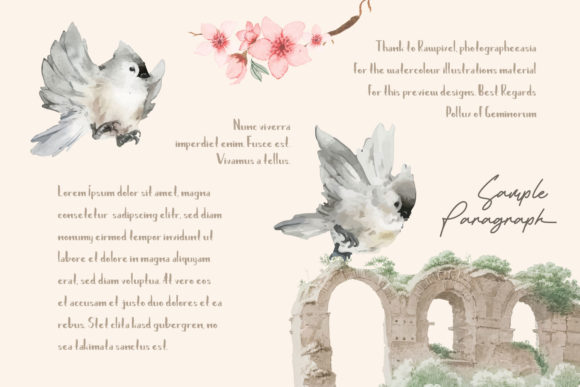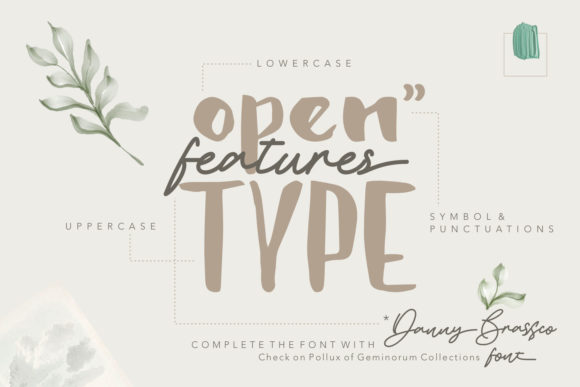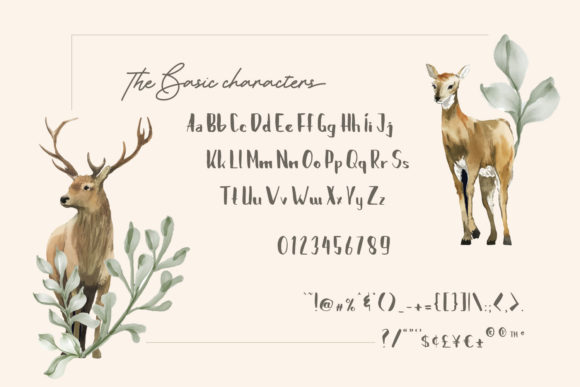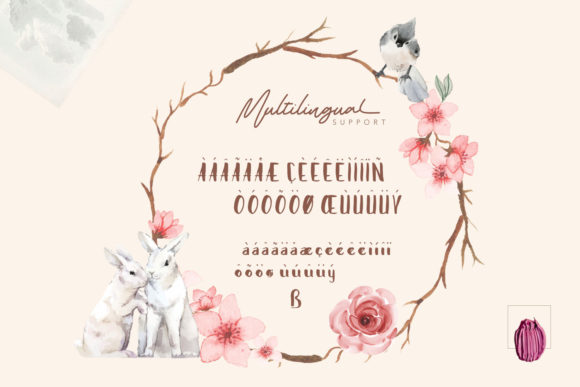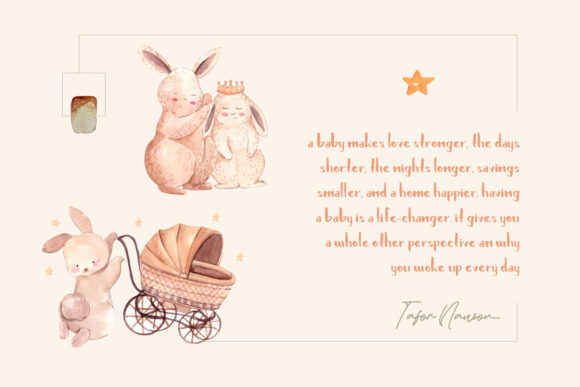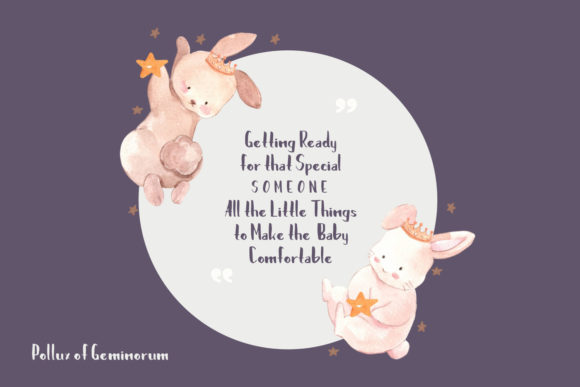
Unlock the Magic of Hand-Drawn Typography
Do you remember the thrill of doodling in your notebook as a kid? The feeling of bringing a blank page to life with vibrant colors and playful scribbles? As a creative, you know that this sense of freedom and expression is what drives us to push boundaries and try new things. And that’s exactly what the Brushylicious Font is all about – capturing the essence of hand-drawn typography in a digital format.
As a versatile and authentic typeface, the Brushylicious Font can be used for a wide range of projects, from eye-catching headings and posters to logos, invitations, and even merchandise. Whether you’re a seasoned designer or just starting out, this font is a valuable asset in your creative toolkit – offering a unique blend of personality and professionalism that’s sure to elevate your work.
Brushylicious Font Key Features
- Unique Characteristics: Brushylicious Font features a hand-painted, watercolor-inspired aesthetic, with subtle texture and organic strokes, perfect for creative and artistic applications.
Brushylicious Font Review
At first glance, the Brushylicious Font seems like a fun, whimsical addition to any design project. ✨ The font’s brush-like strokes and playful letterforms are sure to bring a smile to anyone’s face. I particularly enjoy the font’s versatility – it’s suitable for everything from children’s books to modern branding.
- ✨ Highly expressive and emotive, perfect for conveying a sense of playfulness and creativity.
- ✨ Suitable for a wide range of projects, from children’s content to modern branding and packaging.
- ✨ Easy to read, despite the brush-like strokes and imperfections.
However, there are some limitations to consider. ⚠️ For one, the font may be too playful or immature for some projects, such as formal business communications or serious academic papers. Additionally, the font’s bold and colorful aesthetic may be overwhelming in certain contexts.
Overall, I think the Brushylicious Font is a great addition to any designer’s toolkit. While it may not be suitable for every project, it’s sure to bring a touch of whimsy and personality to those that need it. With its expressive letterforms and playful aesthetic, it’s a great choice for designers looking to add some visual interest to their work.
Tip: Use the Brushylicious font for creative and playful designs, such as social media graphics, posters, and flyers.
Tip: Use the Brushylicious font for hand-lettered and artistic designs, such as typography-based graphics and illustrations.
Tip: Use the Brushylicious font for presentations, reports, and documents that require a creative and attention-grabbing font.
The Brushylicious font is perfect for:
- Creative and playful designs.
- Hand-lettered and artistic typography.
- Attention-grabbing presentations and reports.
Remember to use the Brushylicious font in moderation to avoid overwhelming your design.